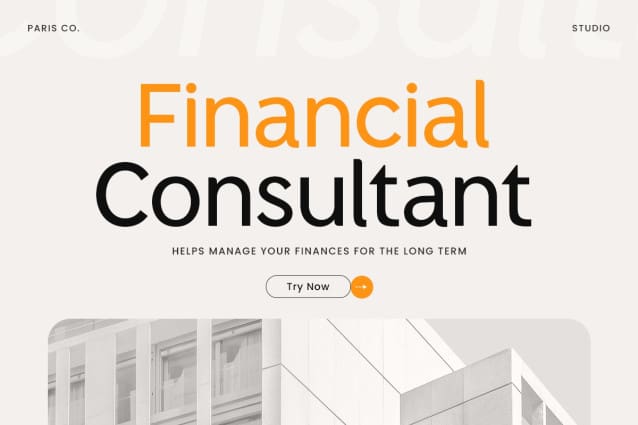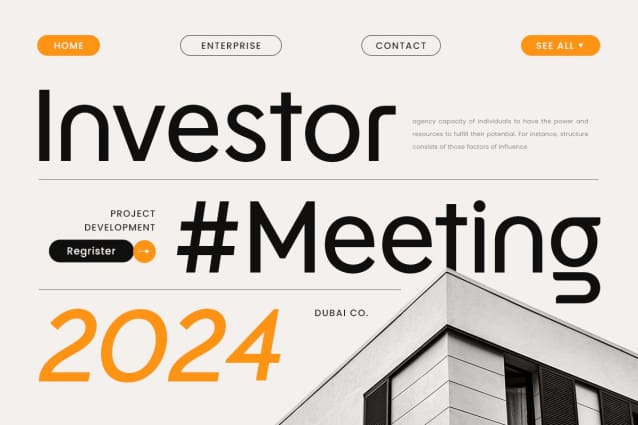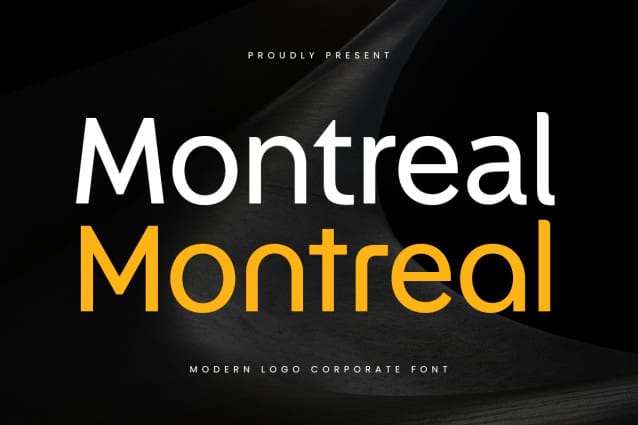
Montreal Font
Montreal Font, a font designed to bring a touch of modern elegance to the Company’s branding. With its sleek and professional design, it is perfect for creating logos and branding materials that exude sophistication and contemporary style.
Montreal Font was inspired by the vibrant, cosmopolitan city that gave it its name. Known for its blend of old-world charm and modern innovation, Montreal captures the essence of a dynamic business environment. Each Montreal character is meticulously crafted to reflect a balance of tradition and modernity, making it an ideal choice for corporate identities that want to stand out while maintaining a professional appearance.